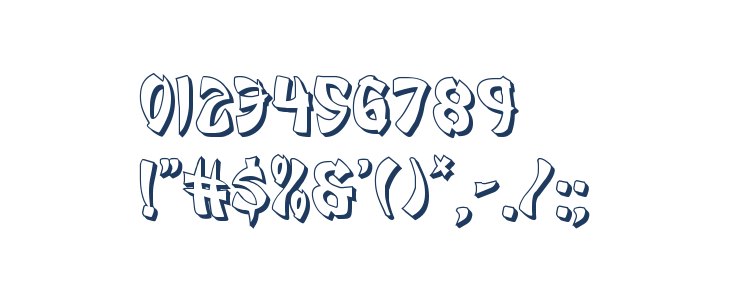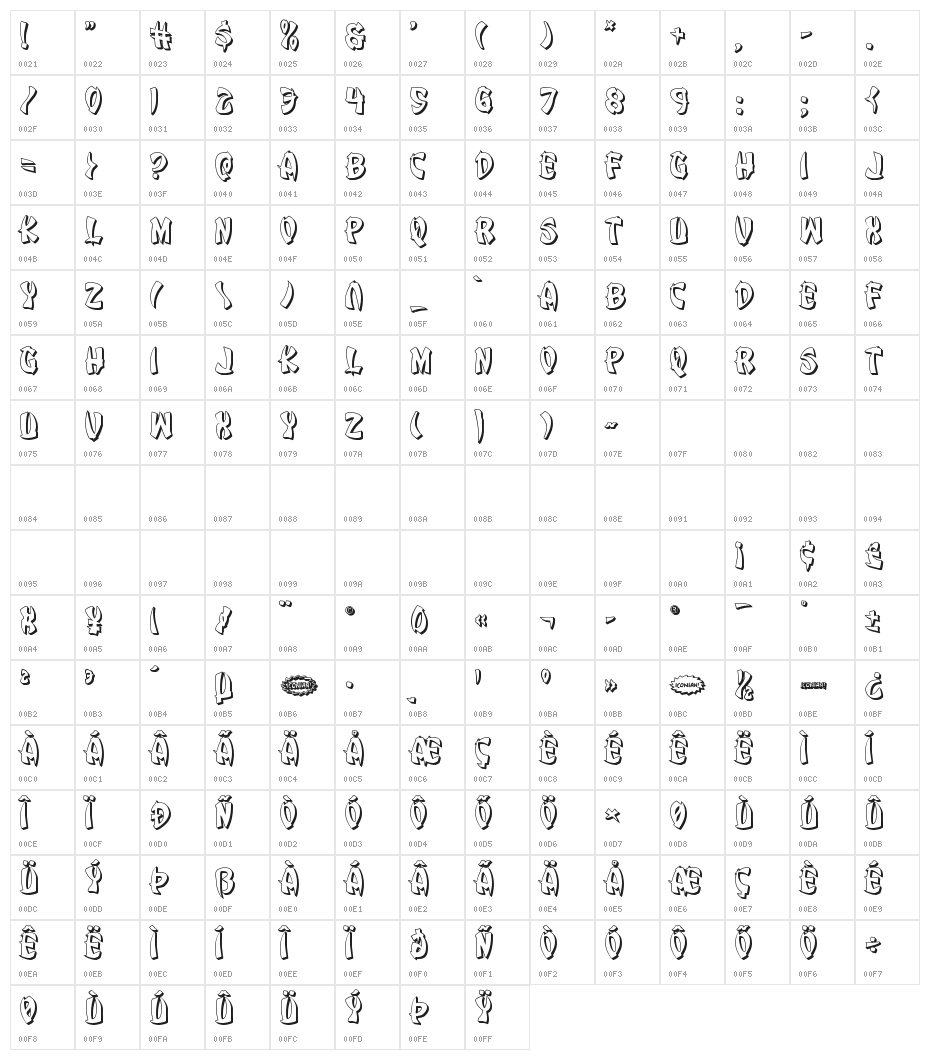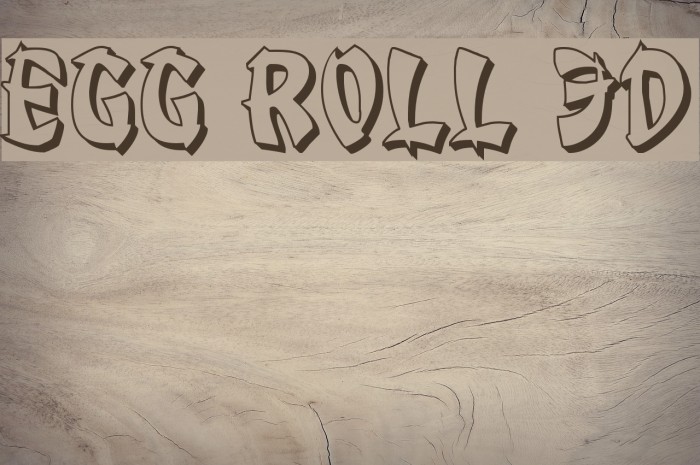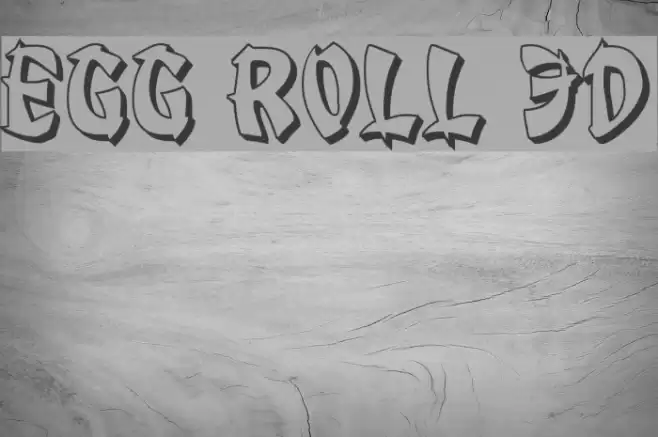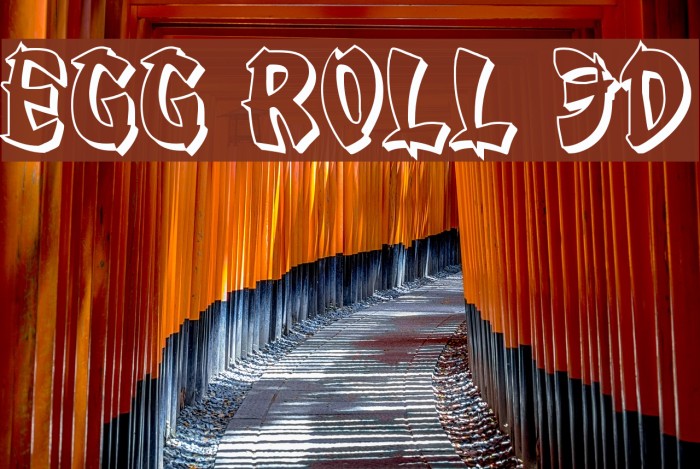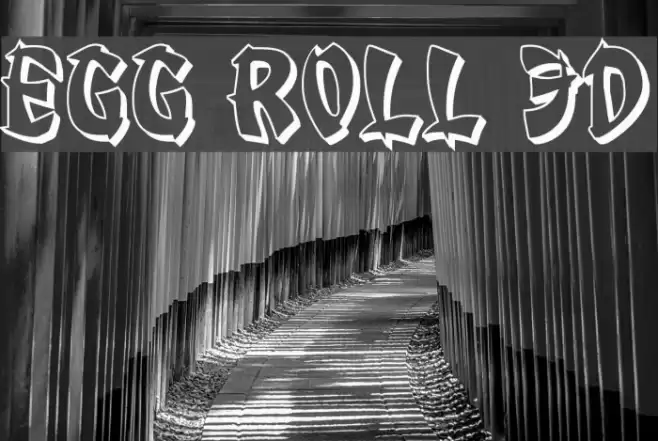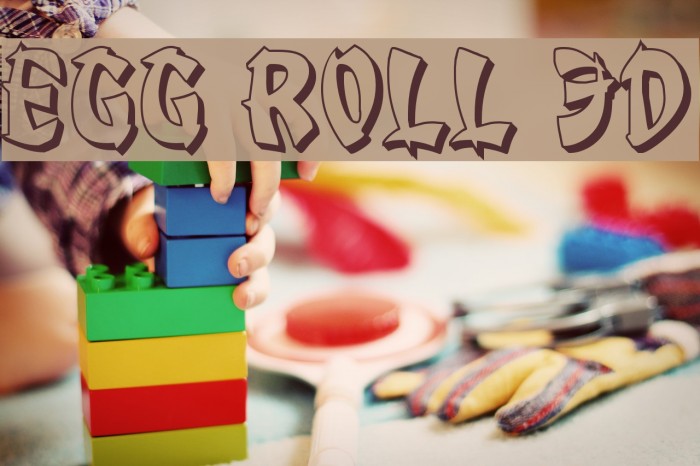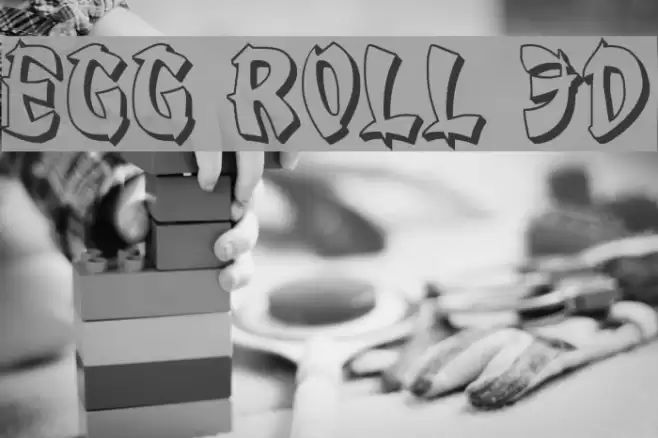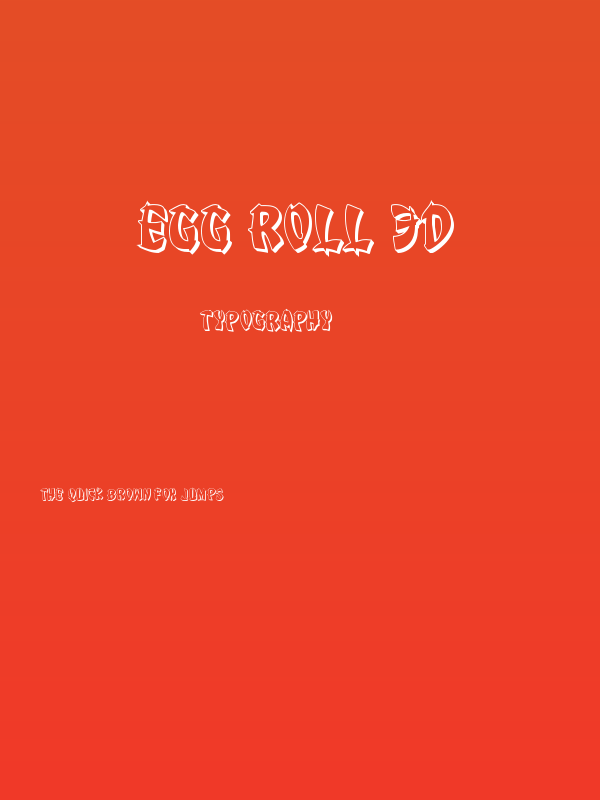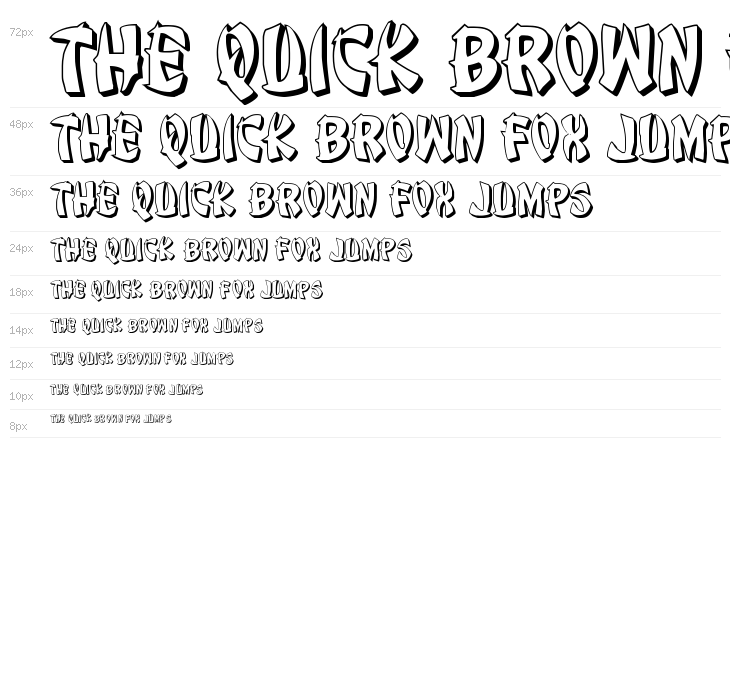
Egg Roll 3D Font
Egg Roll 3D Description
This font features a bold, playful 3D effect that gives each character a sense of depth and dimension. The letters are outlined with a thick black stroke, enhancing their visibility and adding a cartoonish, graffiti-like style. The characters are slightly slanted, contributing to a dynamic and energetic appearance. The font maintains a consistent weight throughout, with rounded edges that soften the overall look. Its unique style makes it ideal for creative and informal applications, where a sense of fun and excitement is desired.
| Proposed Projects | Ideal for comic book titles, children's book covers, playful branding, and event posters. |